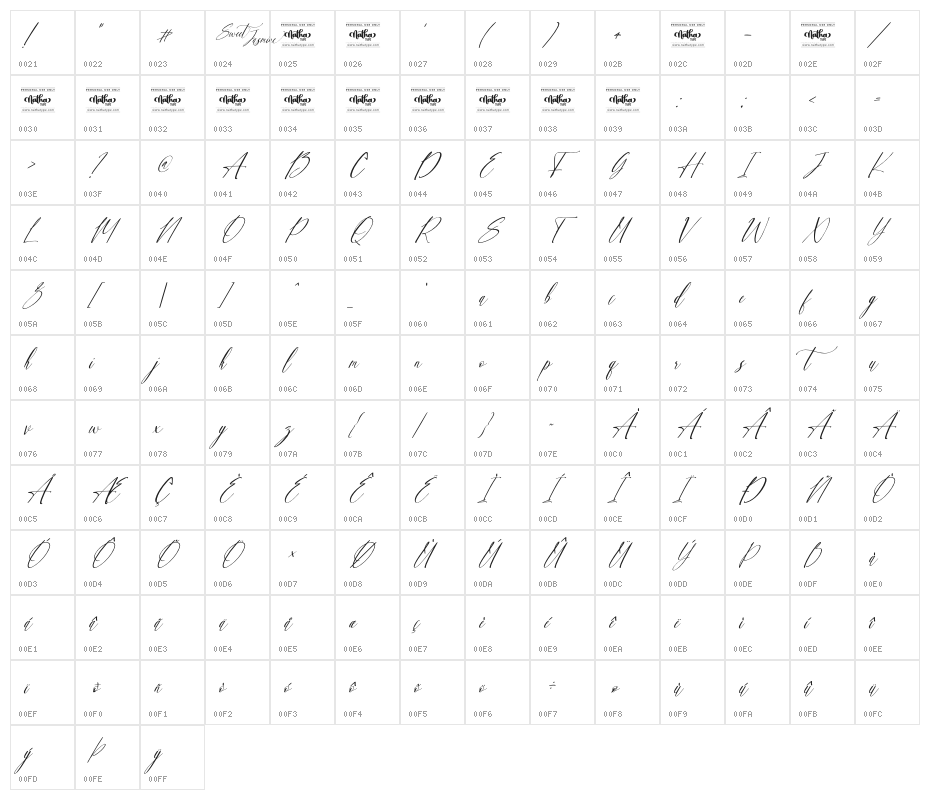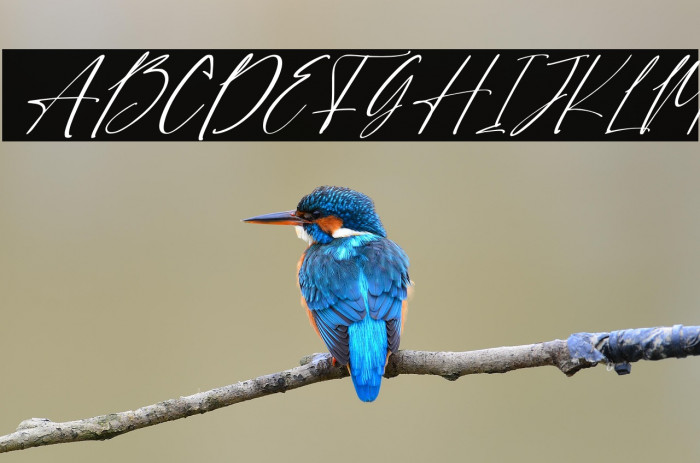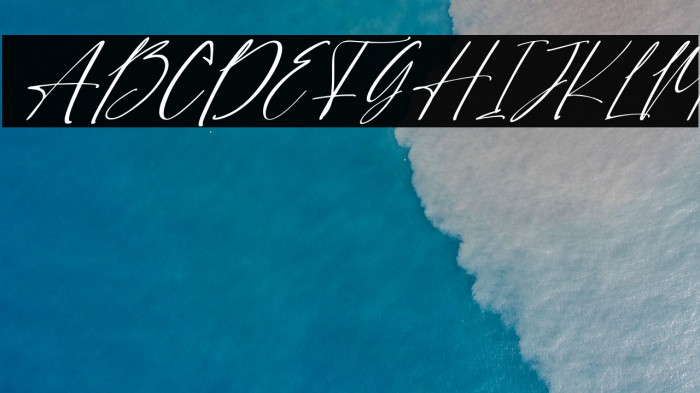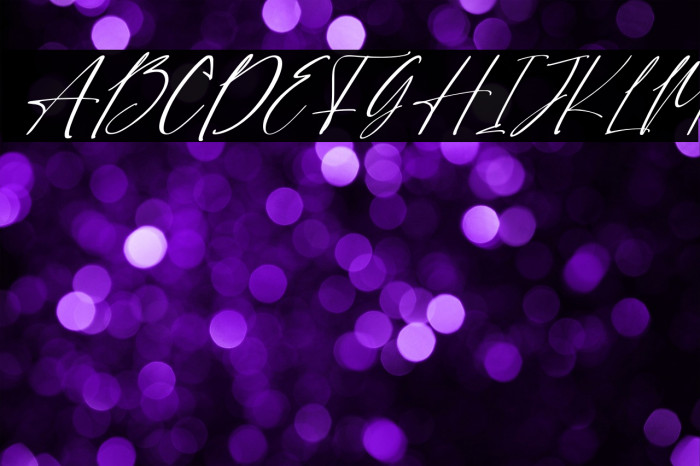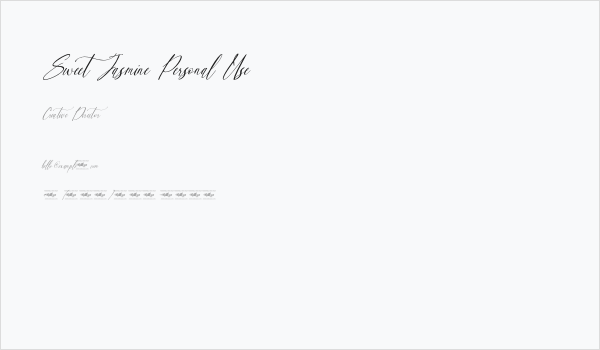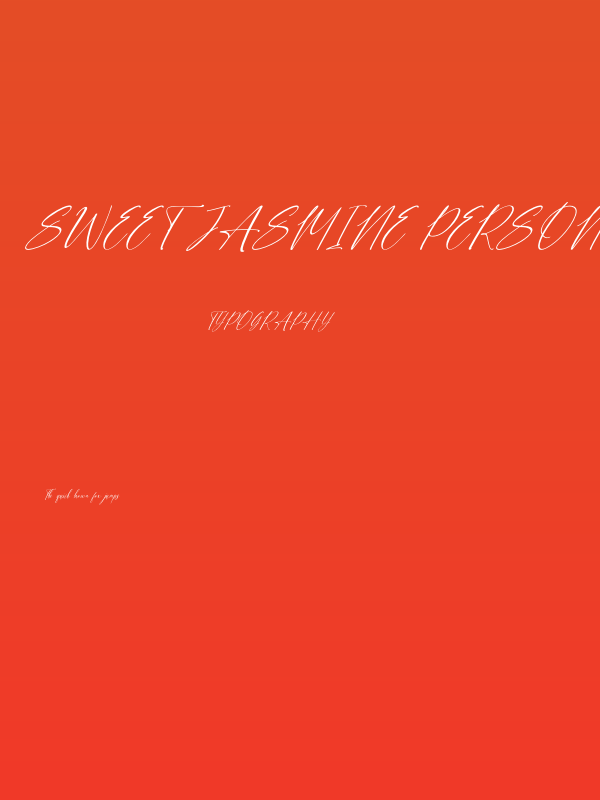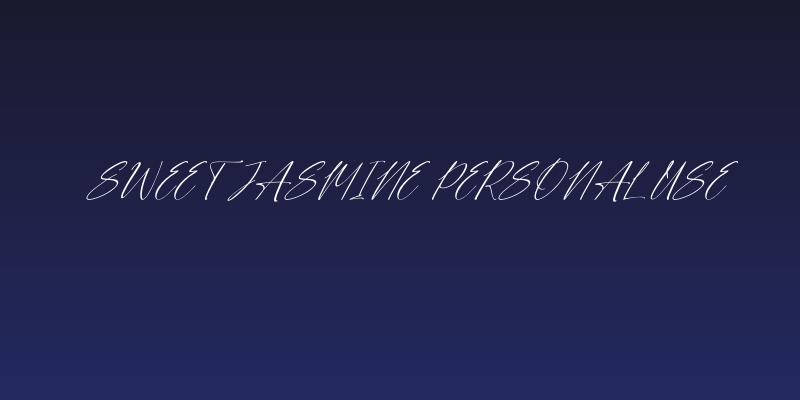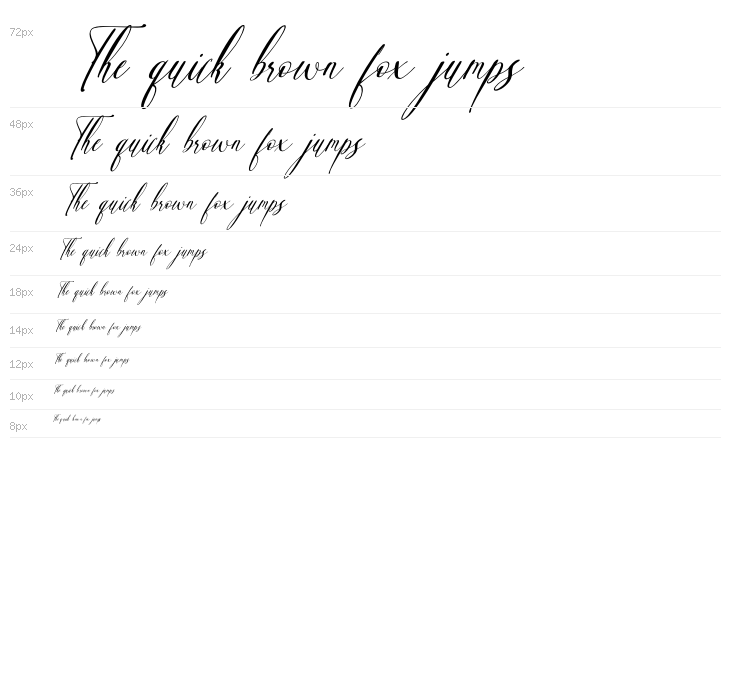
Sweet Jasmine Personal Use Font
Sweet Jasmine Personal Use Description
This elegant script font features flowing, interconnected letters with a distinct calligraphic style. The uppercase letters are tall and slender, exuding a sense of grace and sophistication. The lowercase letters maintain a consistent fluidity, with some characters extending below the baseline, adding to the font's dynamic appearance. The numerals and special characters are crafted with the same attention to detail, ensuring a cohesive look across all text. This font is ideal for projects that require a touch of elegance and personal flair.
| Proposed Projects | Wedding invitations, greeting cards, branding, and elegant packaging. |